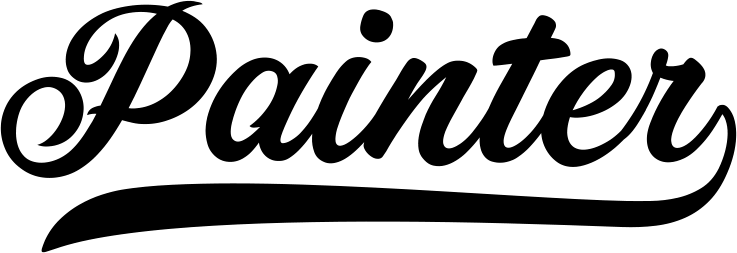
Painter Font
Would you like to add a classic and vintage feel to your typography? If so, you will find Painter interesting, especially with the cursive and creative lettering! This old-school font has brave, thick, and adventurous characters that are impressive.
This provides mixed-case letterforms and punctuation without any numbers. You will appreciate using this font in places like gaming, articles, books, brochures, display banners, and adverts. It’s a very stylish that will gain a lot of attention wherever it is used.